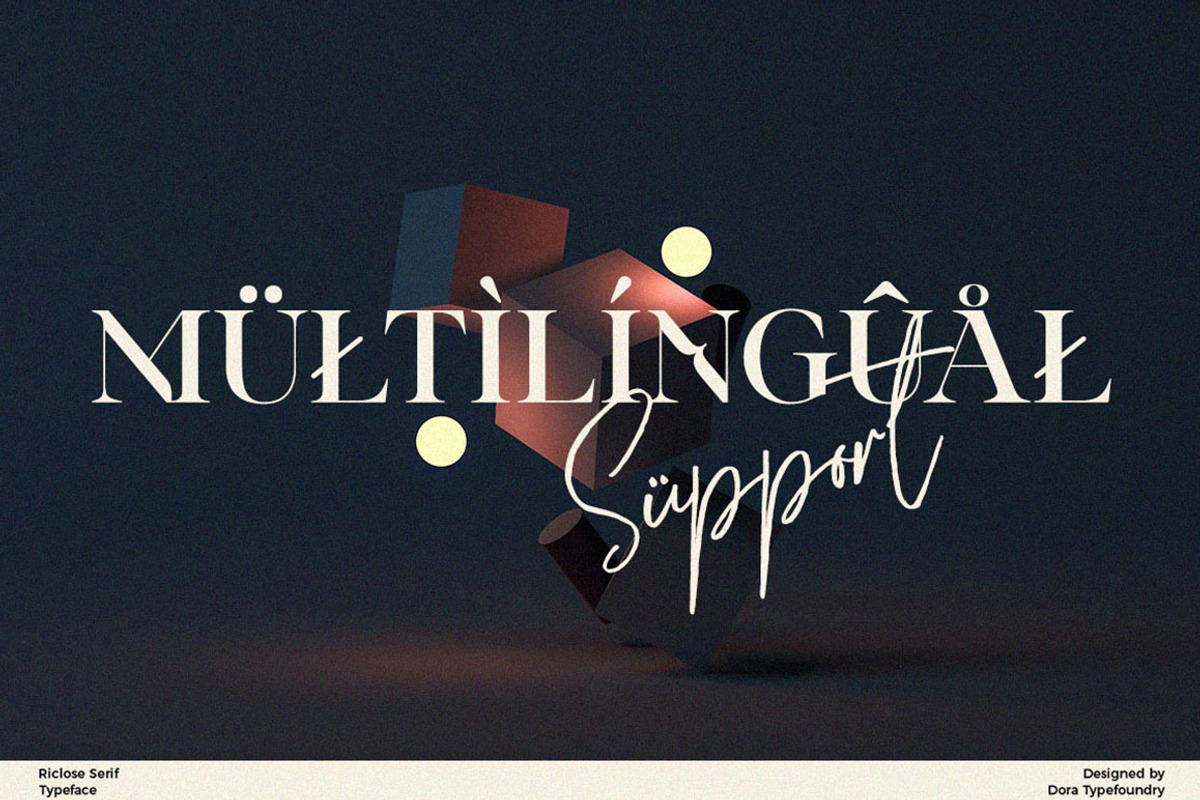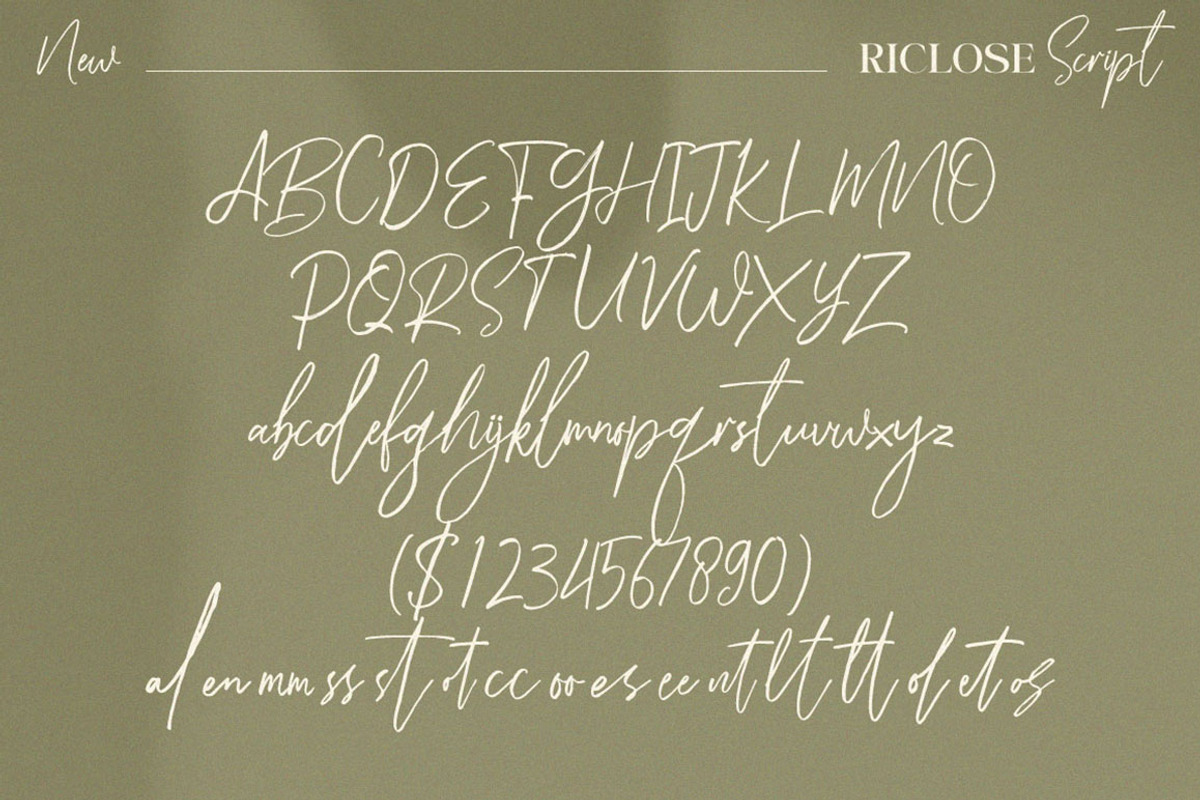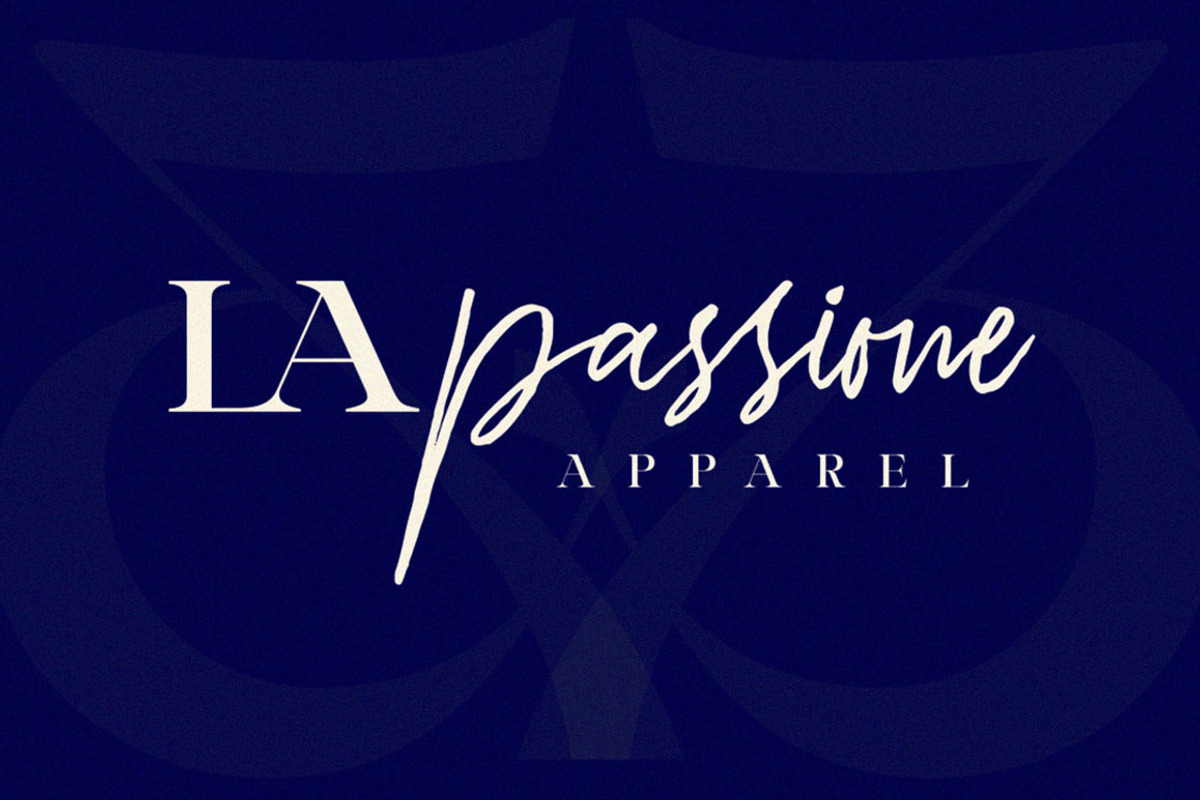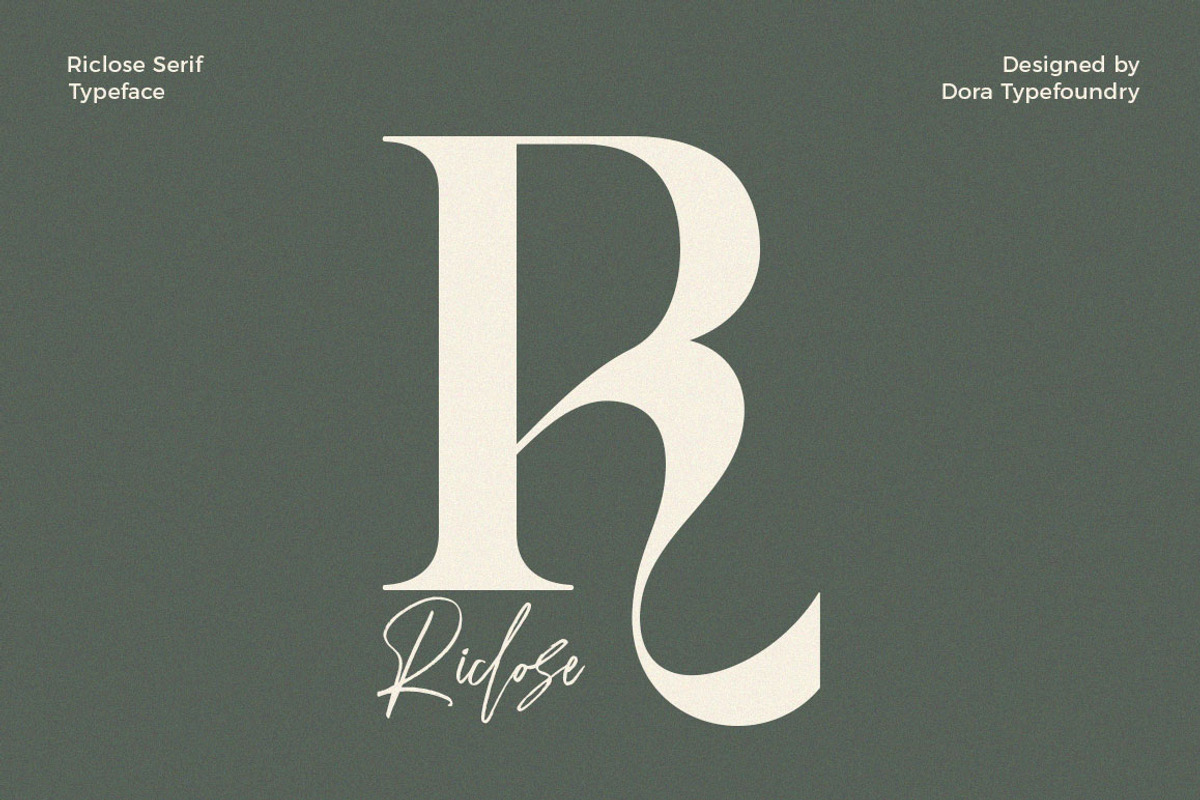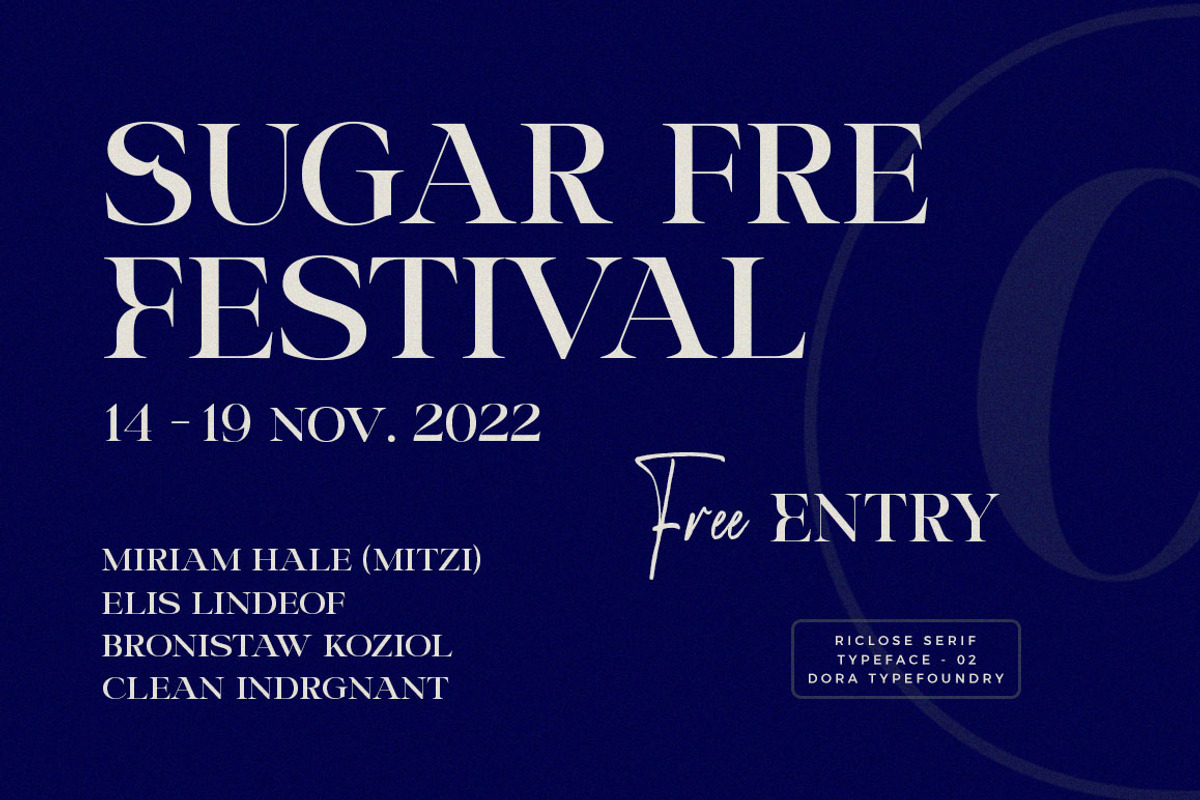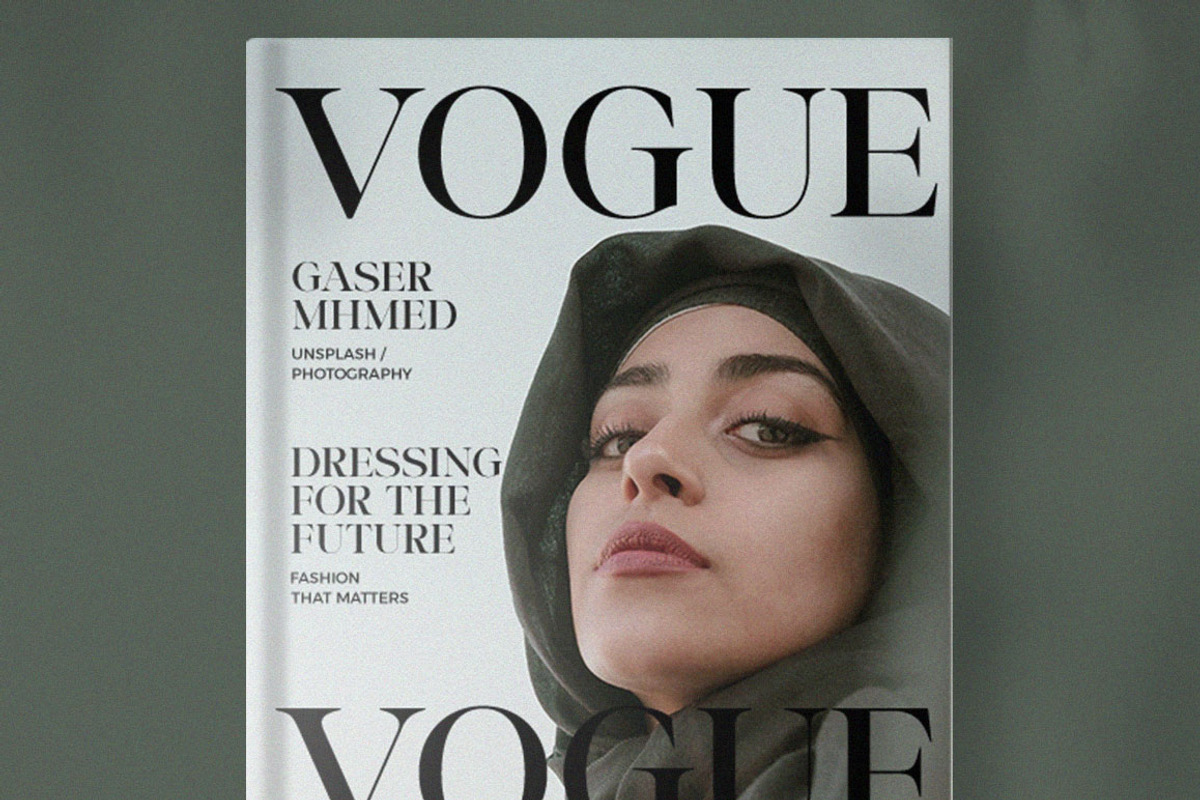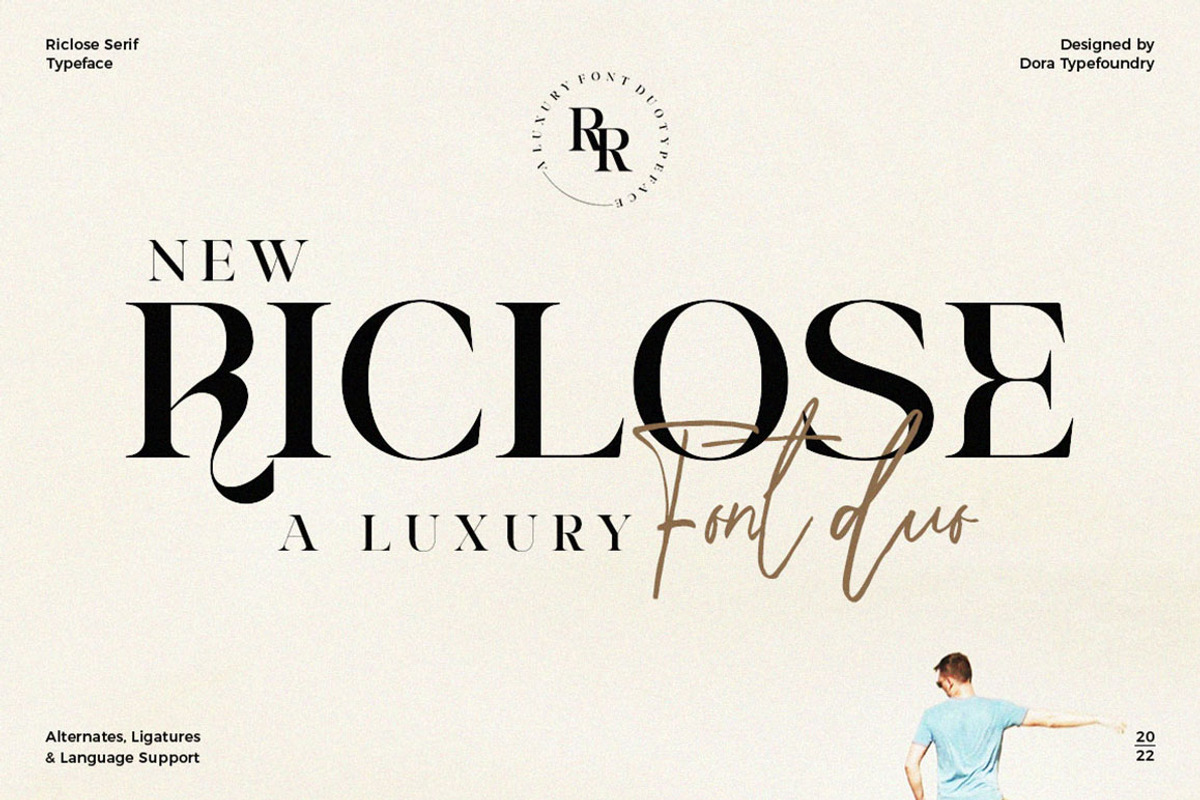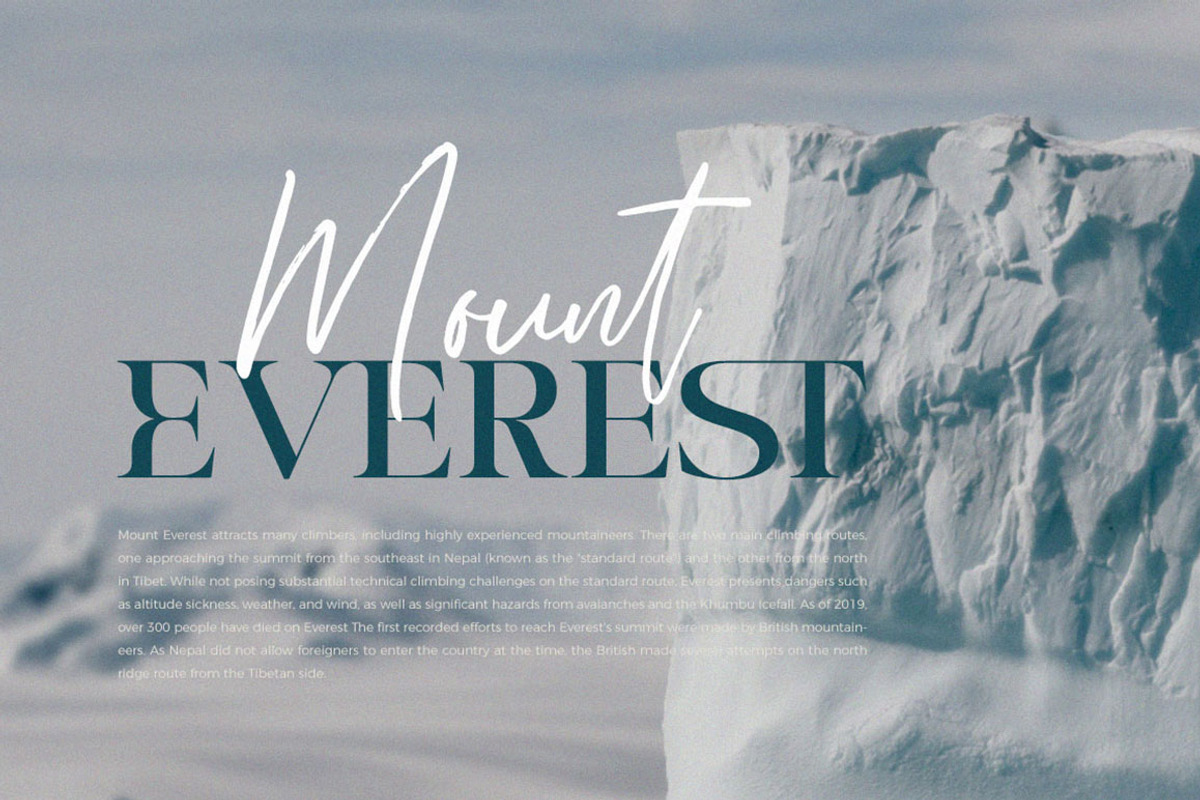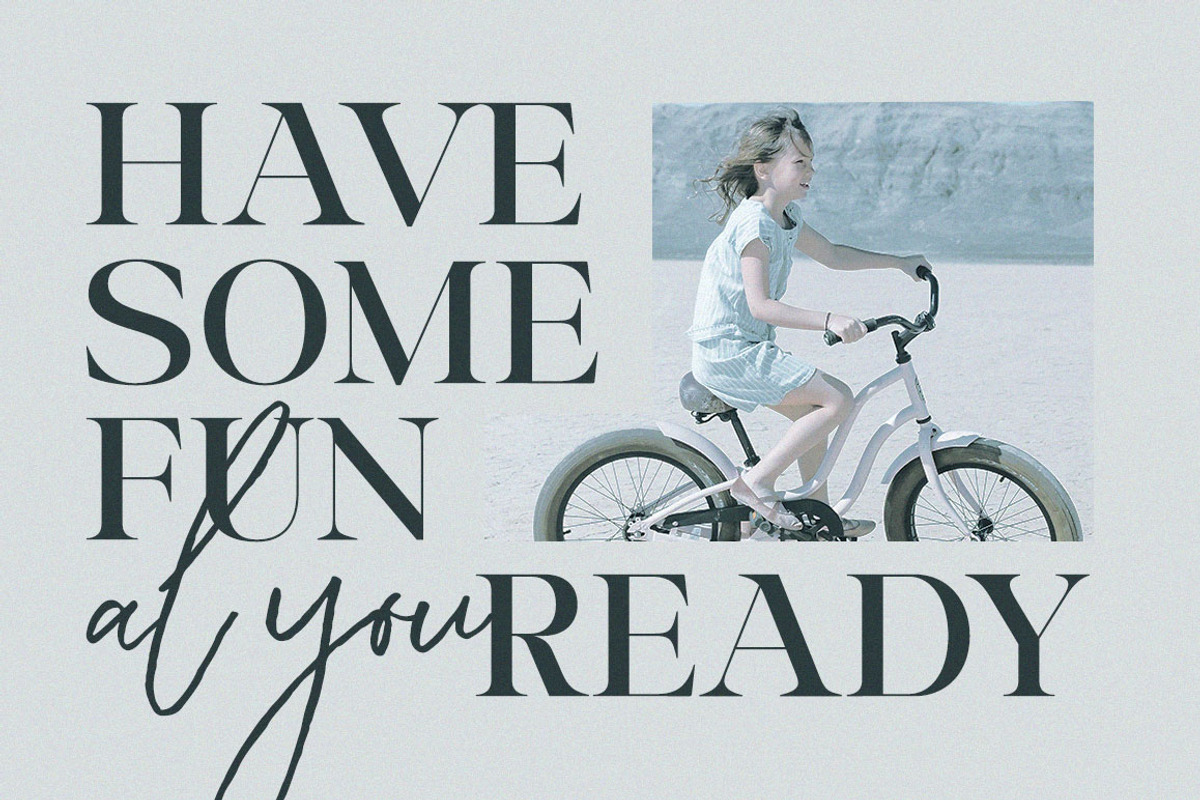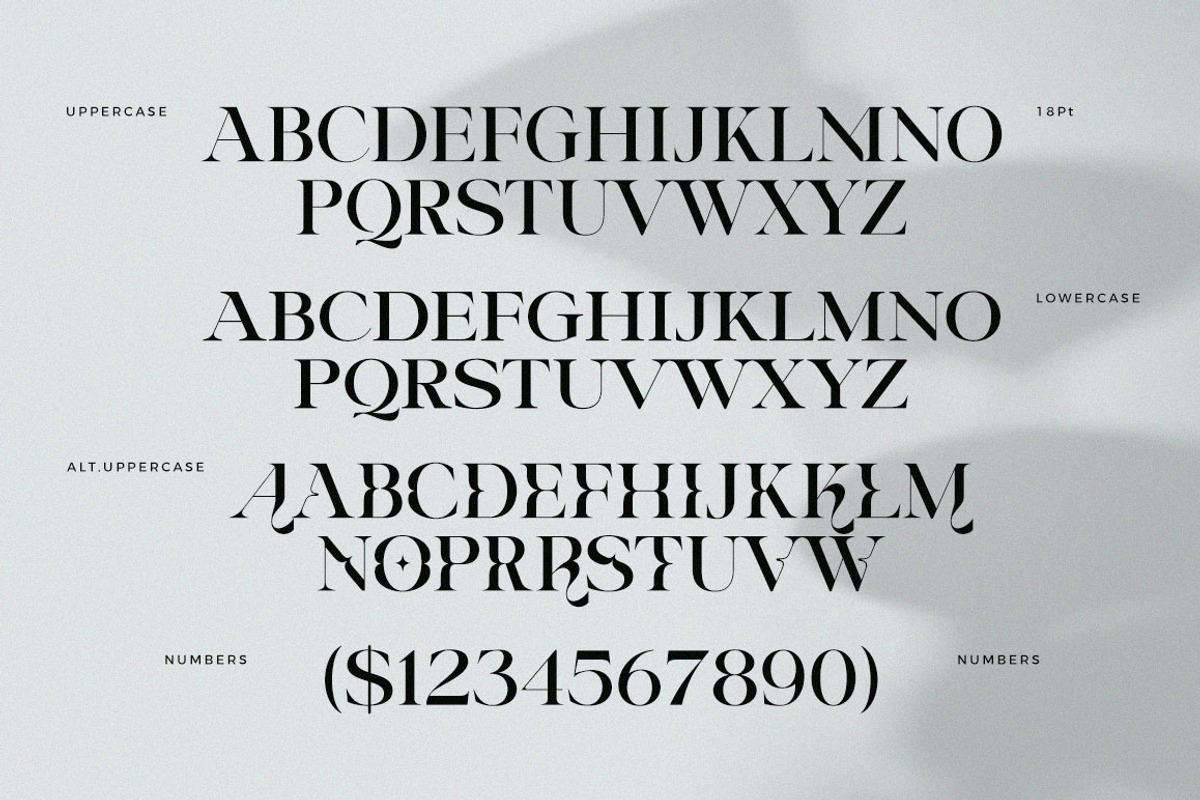
Riclose Font Duo
Riclose is a set of two modern and classy fonts. With stylish serif fonts and free-flowing handwritten font script companions,They blend very well. Riclose offers beautiful typographic harmonies for a wide variety of design projects, including logos & branding, wedding designs, social media posts, advertising & product designs.